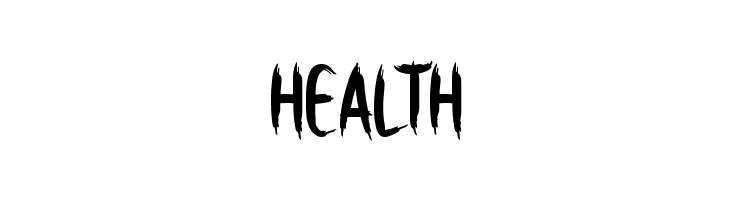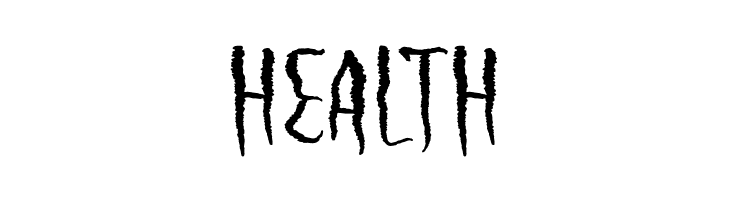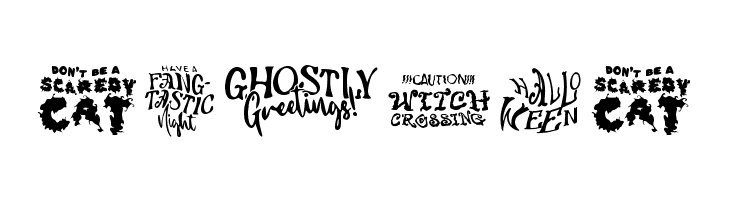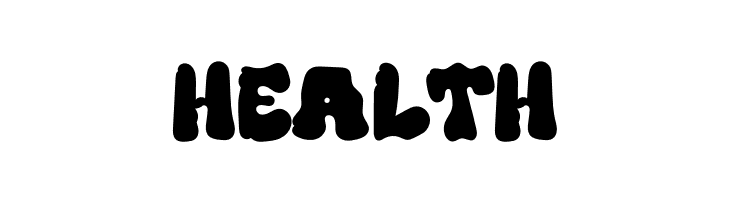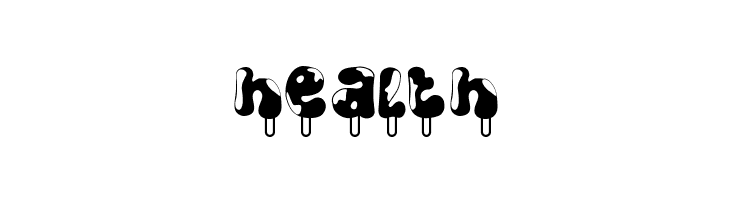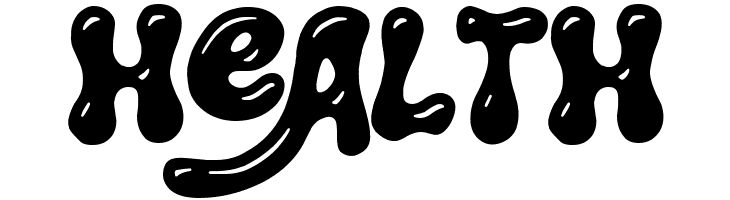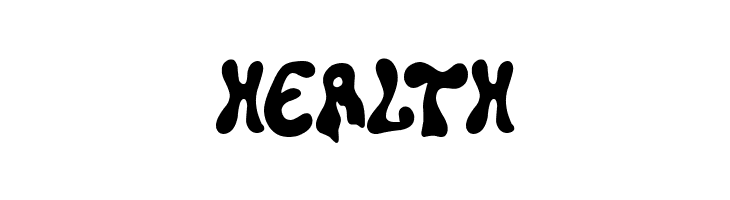
A haunting, jagged font with a spooky, ghostly aesthetic.
A spooky, jagged font perfect for horror and Halloween themes.
A playful and spooky decorative font ideal for Halloween themes.
A bold, spooky font with irregular edges, perfect for Halloween themes.
A bold, jagged, and textured font with an edgy, hand-drawn appearance.
A playful, melting-style font with a bold, rounded design.
A bold, playful font with a bubbly, liquid-like appearance.
A bold, fluid, and playful font with a melting, organic appearance.
A playful, melting-style decorative font with bold outlines.
A bold, wavy, and playful font.